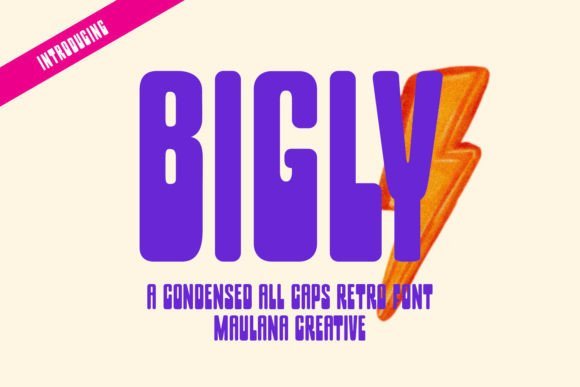
The Perfect Typography Companion for Your Next Project
You know that feeling when you’re working on a design project, and you’re stuck on the perfect font? The one that brings your vision to life and sets your creation apart from the rest? For designers, finding that elusive font can be a game-changer.
Enter Bigly Font, a condensed retro sans serif font that’s about to become your new best friend. Whether you’re working on a poster, a logo, or a website, Bigly Font has the potential to elevate your design and make it truly unforgettable.
With its unique blend of retro and modern elements, Bigly Font is a valuable addition to any designer’s library. Its versatility and timeless appeal make it an ideal choice for projects of all kinds, from bold and eye-catching to subtle and sophisticated.
Key Features of Bigly Font
- Unique Characteristics: Bigly Font features an innovative, hand-drawn design with bold lines and distinctive letterforms, setting it apart from other fonts in its category.
- Font Family: Bigly Font is part of a comprehensive font family, offering a range of weights and styles to suit different design needs, including Regular, Bold, Italic, and Bold Italic.
- Legibility: Bigly Font is designed to be highly legible, even at small sizes, making it an excellent choice for body text, headings, and other design applications where readability is crucial.
Bigly Font Review
Bigly Font is a recent addition to the font family scene, and I was excited to give it a try. Overall, I think it has some great qualities, but it also has some areas where it falls short. ✨
- Bigly Font has a unique, bold personality that’s sure to grab attention. Its distinctive curves and sharp lines make it perfect for headings and titles.
- The font has a wide range of weights and styles, making it easy to customize to your needs. From light and elegant to heavy and dramatic, there’s a version of Bigly Font to suit any design.
- The font is highly legible, even at small sizes, making it a great choice for digital applications and web design.
- ⚠️ Bigly Font can be a bit overwhelming at large sizes, so be careful not to overuse it. It’s best to balance it with more subtle fonts to avoid visual fatigue.
- The font’s bold personality can sometimes come across as loud or aggressive, so use it sparingly in body text to avoid overwhelming the reader.
- Some users may find the font’s unique style to be distracting or difficult to read, so be sure to test it with your target audience before using it in a major design project.
Bigly Font is a solid addition to any designer’s toolkit. While it may have some limitations, its unique personality and wide range of customization options make it a great choice for the right project. With a little care and attention, Bigly Font can be a real showstopper.
Bigly Font is perfect for creating eye-catching headings and titles in your Canva designs. Use it to add a touch of drama and sophistication to your graphics.
Bigly Font works well in combination with bold and colorful graphics, making it ideal for creating attention-grabbing posters and flyers.
Bigly Font is great for creating dynamic presentations and reports. Use it to add a touch of professionalism and style to your content.
Bigly Font is perfect for:
- Creating eye-catching headings and titles
- Adding a touch of drama and sophistication to your designs
- Creating attention-grabbing posters and flyers
- Adding a touch of professionalism and style to presentations and reports